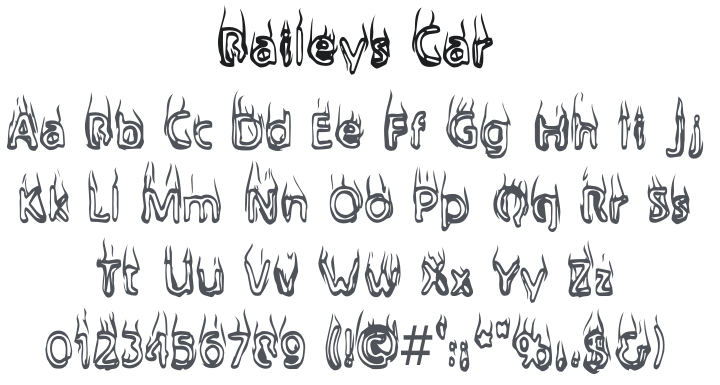
Baileys Car Font
About Baileys Car
Bailey's Car is a fiery novelty headline font born from a real-life incident — Ray Larabie witnessing the burning wreck of sprinter Donovan Bailey's Mercedes in 1998. Letters appear scorched and flame-distorted, making it a quintessential "fire font" of the late-90s web era. Best used for hot-themed headlines, extreme sports graphics, Halloween designs, or any project needing dramatic, blazing energy.